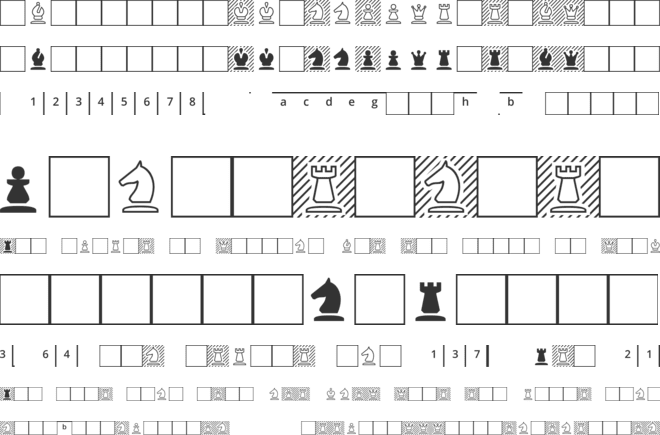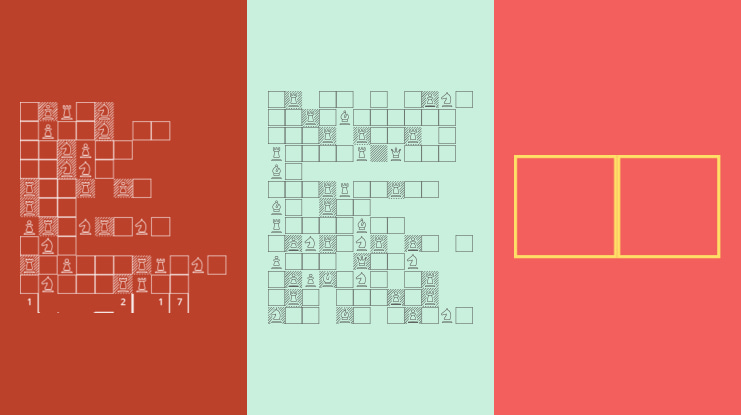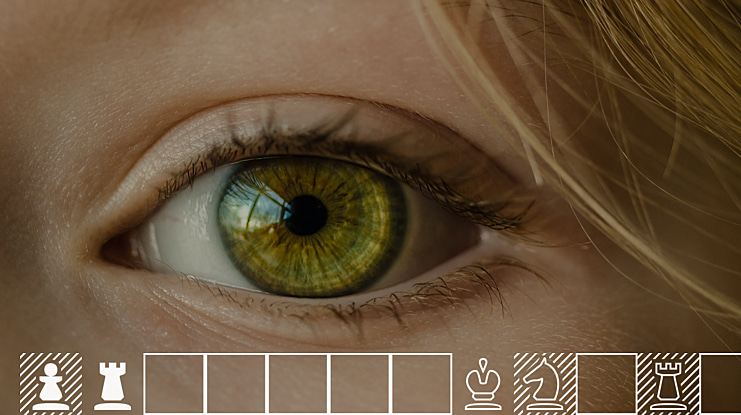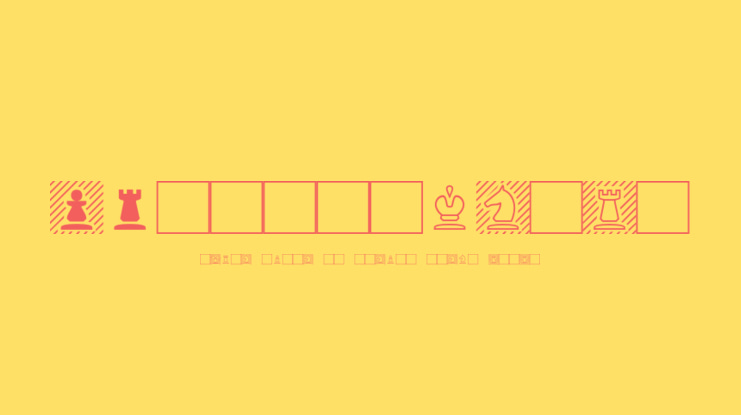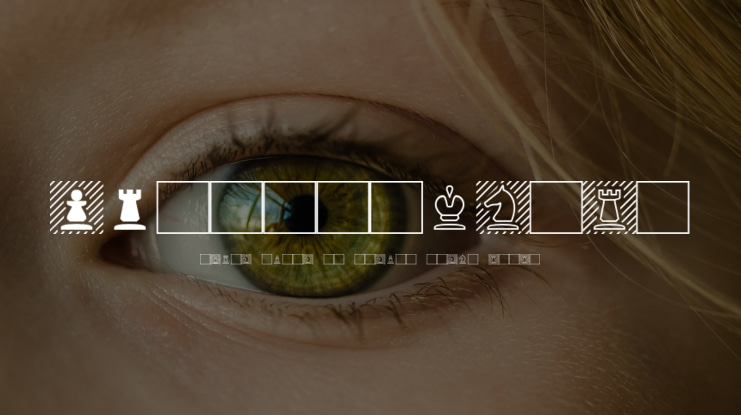
OTLCheckmate Font
OTL Checkmate is a smart and modern open source chess font. The font is based on contextual alternatives ('calt'), which allows it to automatically solve some routine tasks when typing chess game diagrams. Thanks to the 'calt' feature, the font automatically arranges the color cells of the playing field, and is able to put the figure on the cell of the desired color. This significantly speeds up the typing. Plus, the feature allows you to display some elements of the playing field frame automatically.